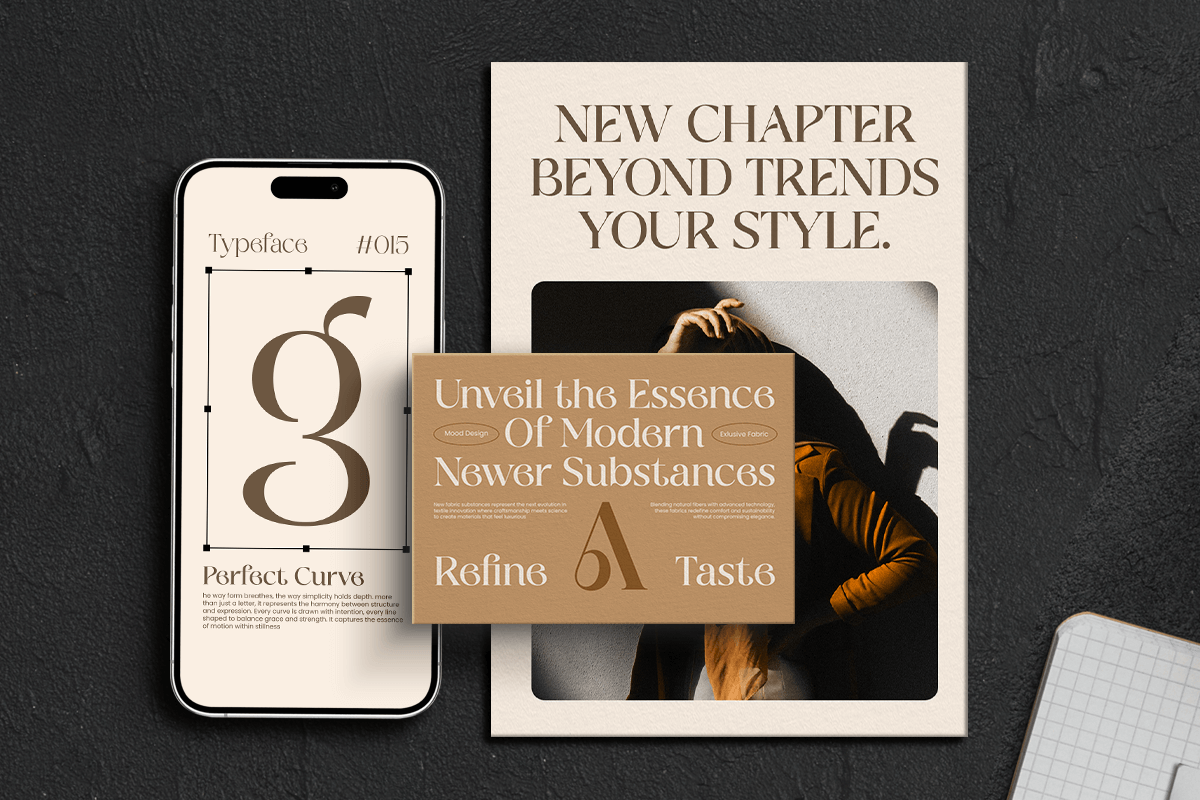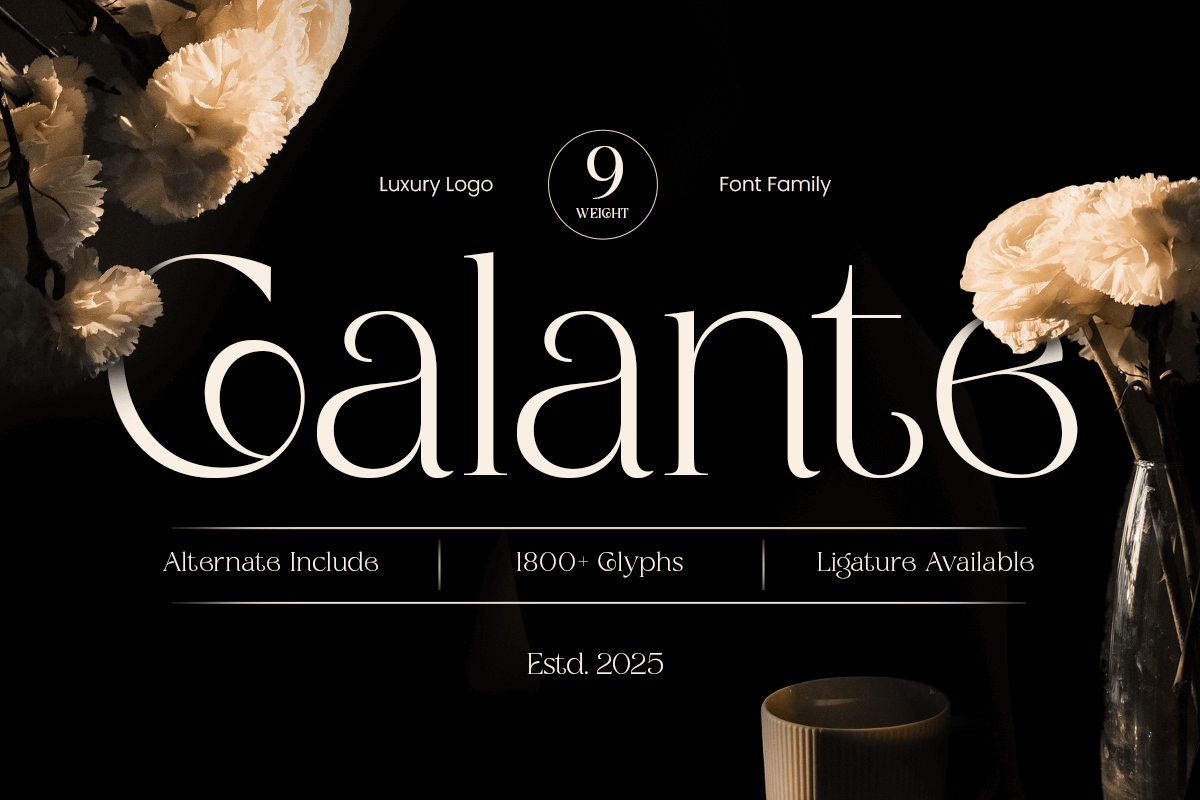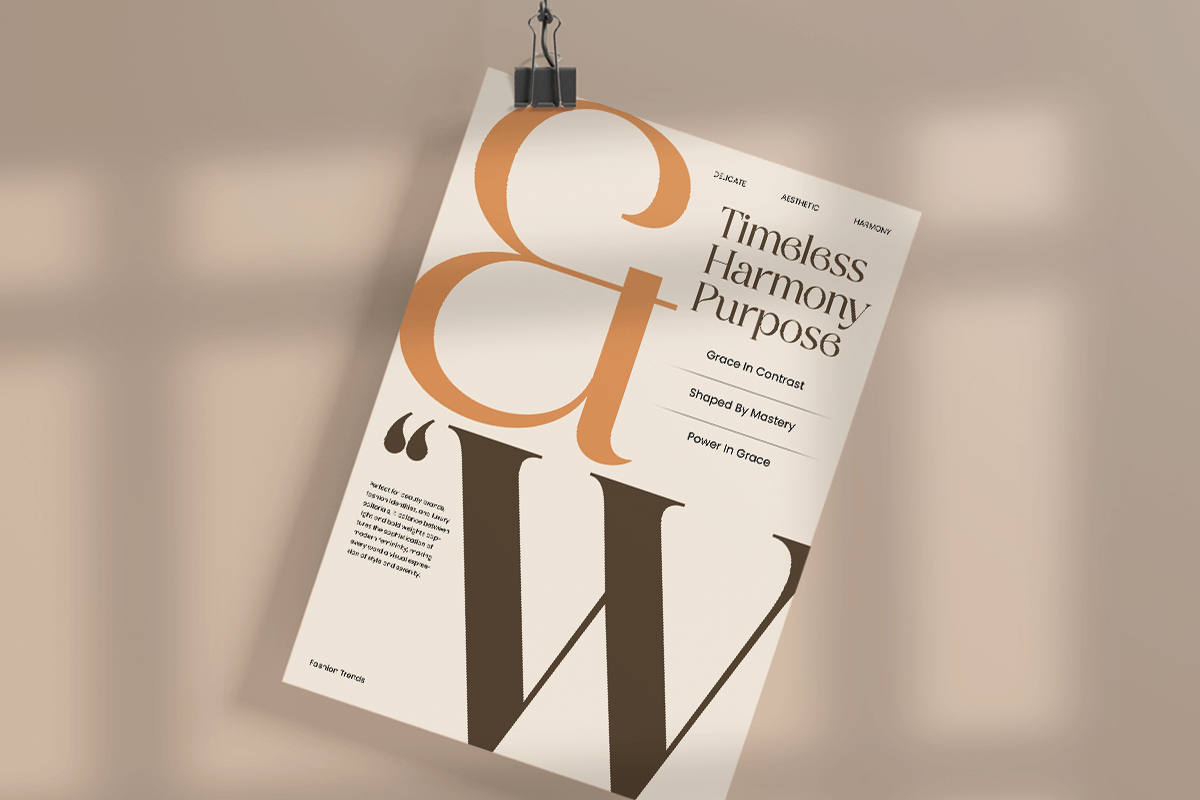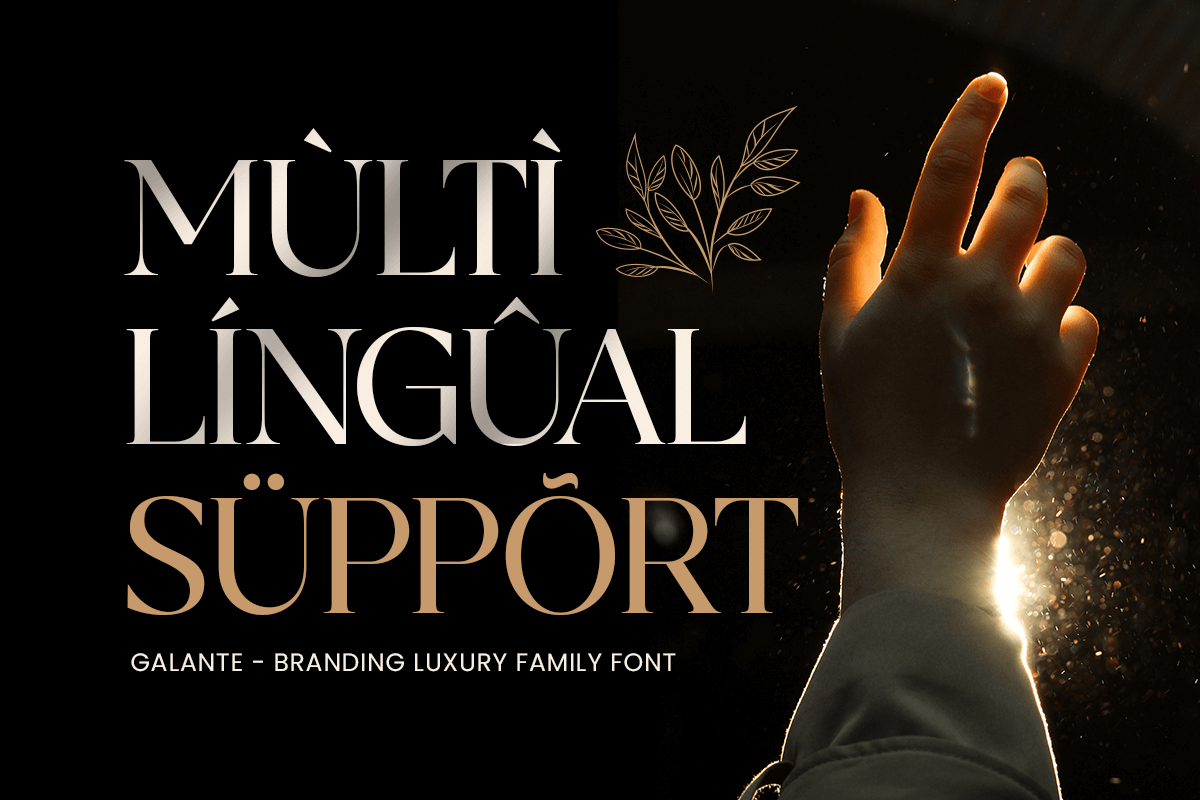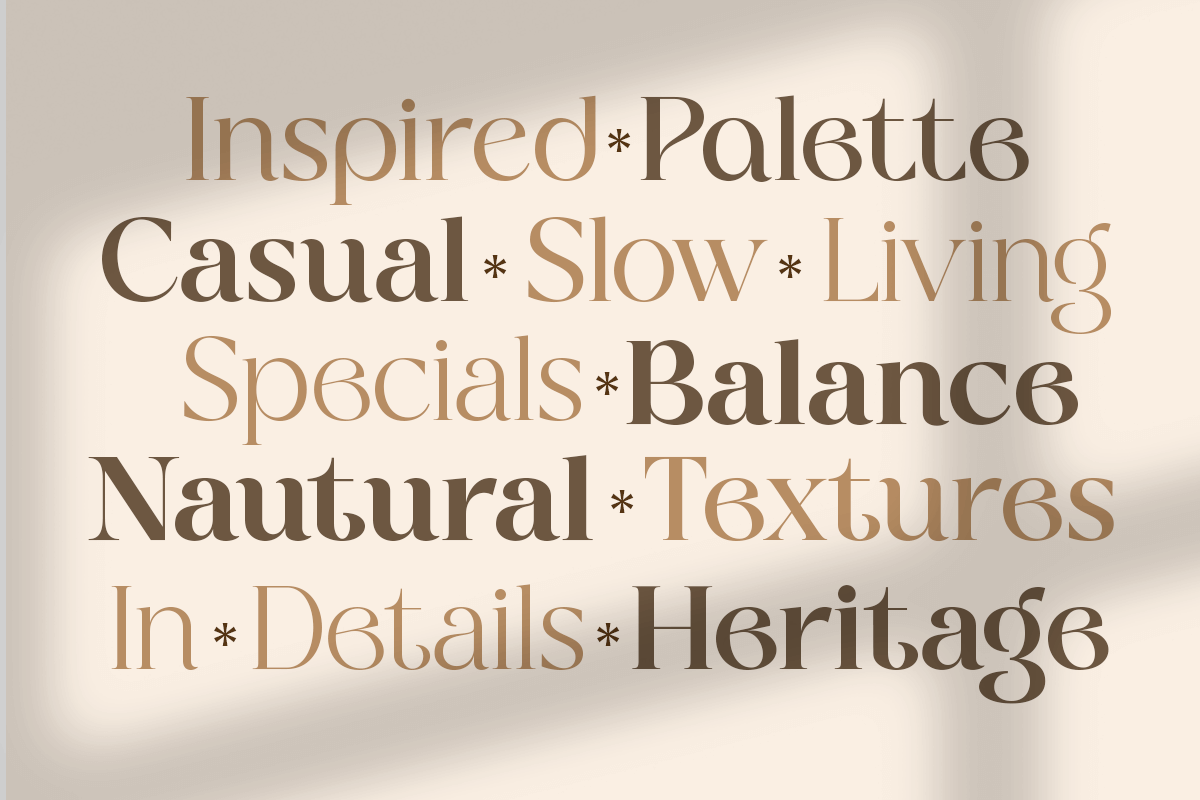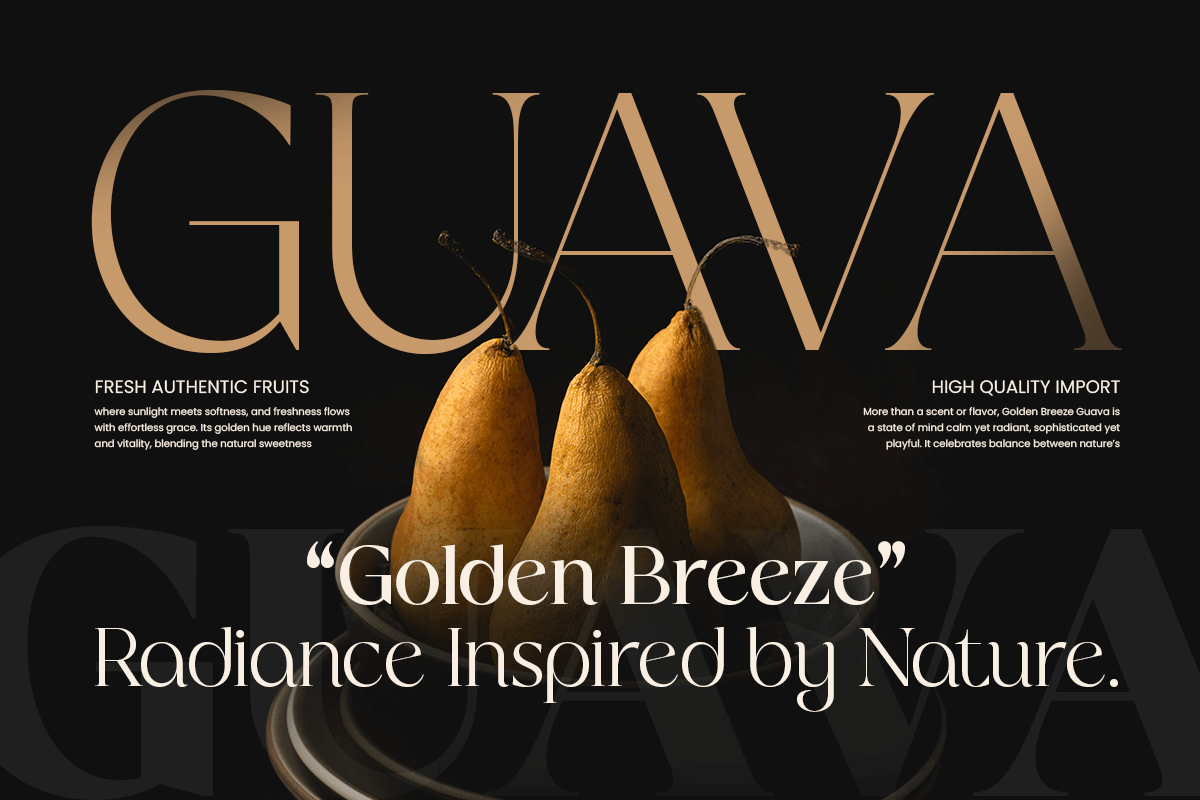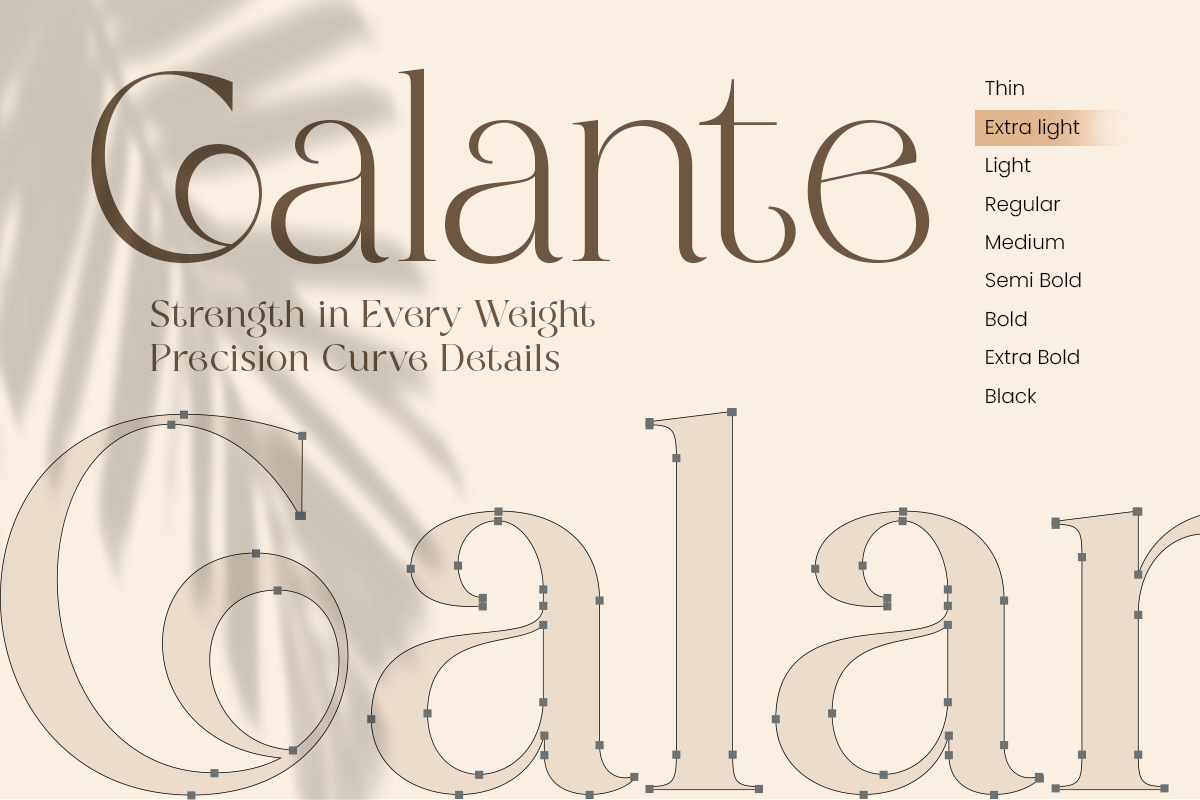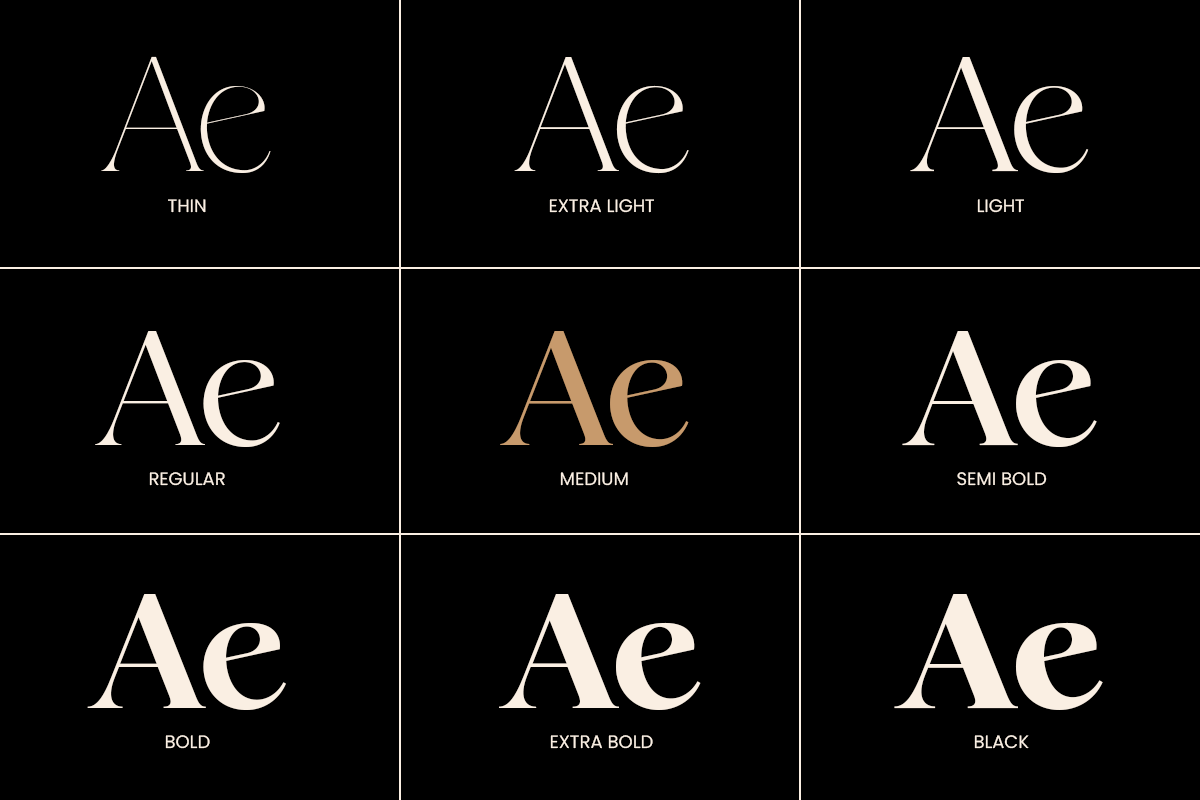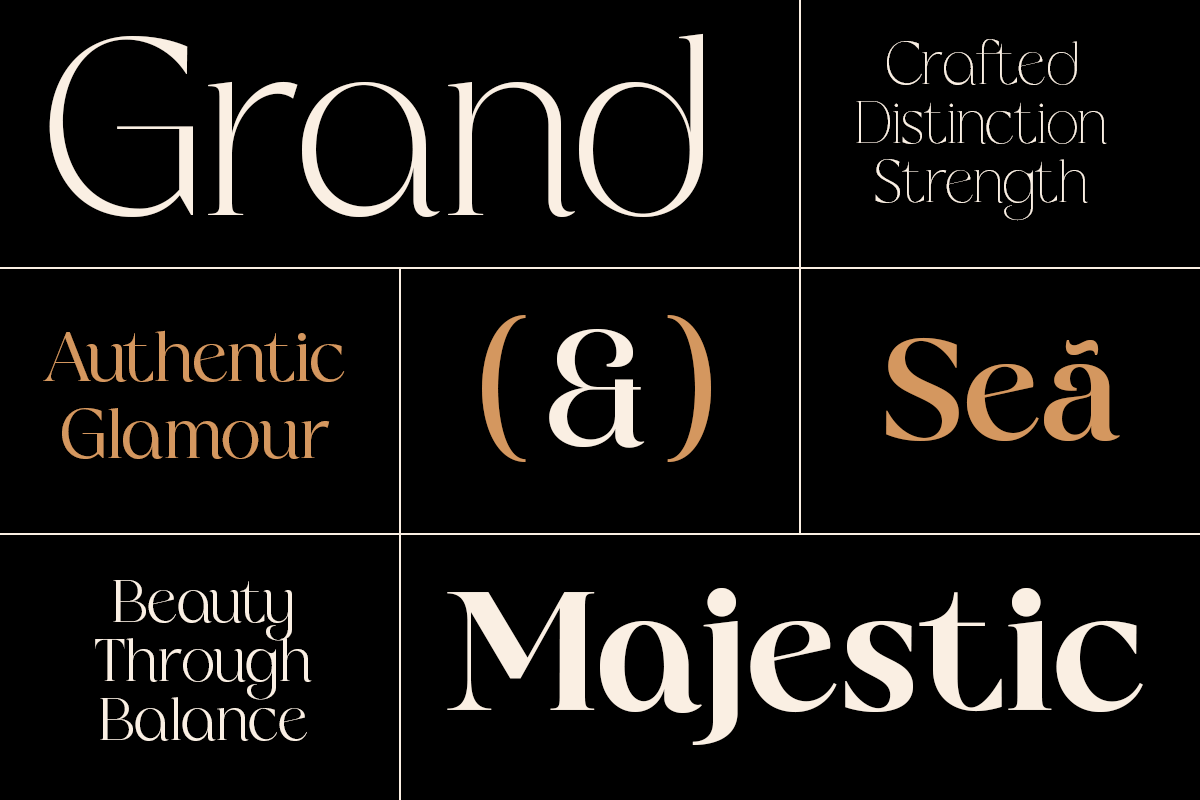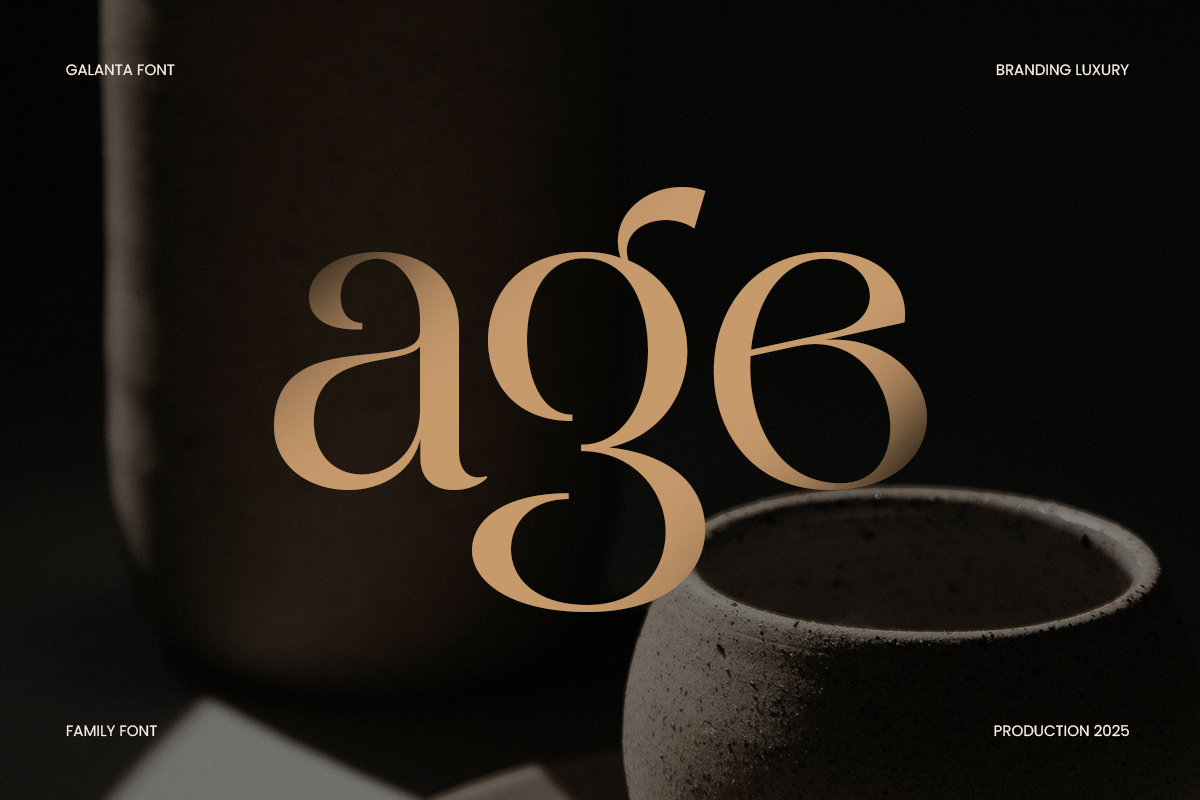
Galante Branding Luxury Font Family
Galante is a branding luxury font family created to deliver a polished, high-end impression across complete identity systems. With refined letterforms and a modern luxury tone, this family helps designers build consistent typography that feels elegant, confident, and premium.
Perfect for luxury branding, fashion and beauty logos, boutique packaging, editorial headlines, and upscale marketing materials, Galante performs beautifully across logos, brand guides, social media campaigns, websites, product labels, and print collateral. Its family approach makes it easy to keep hierarchy, balance, and consistency—whether you’re designing minimalist layouts or bold premium statements.
From premium startups to timeless luxury brands, Galante gives your typography the classy presence it needs to look expensive, professional, and unforgettable across both digital and print projects.
Galante – Luxury Branding Family Features
Luxury branding font family built for cohesive identity systems
Elegant, refined letterforms with premium visual tone
Ideal for logos, brand identity, packaging, and editorials
Great for fashion, beauty, jewelry, hospitality, and boutique brands
Includes uppercase, lowercase, numerals, and punctuation
Designed for sharp results in print and on-screen use
OpenType features for refined typographic styling